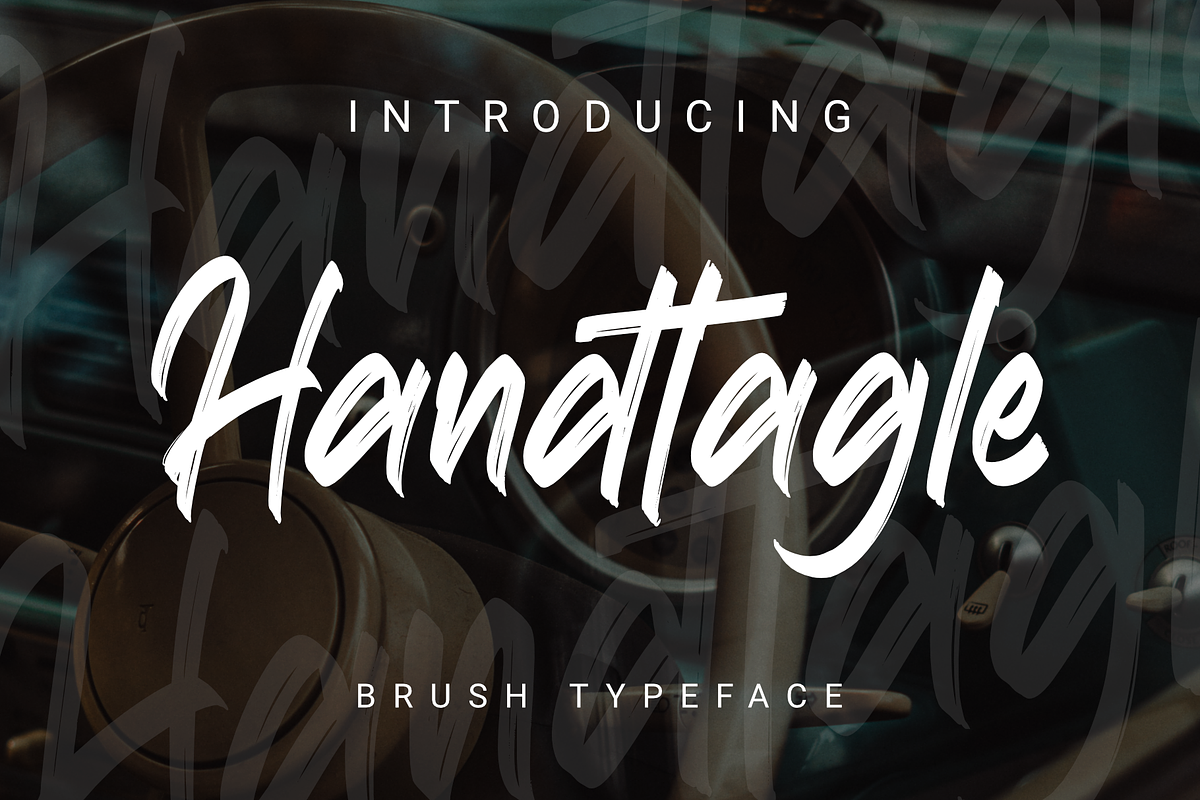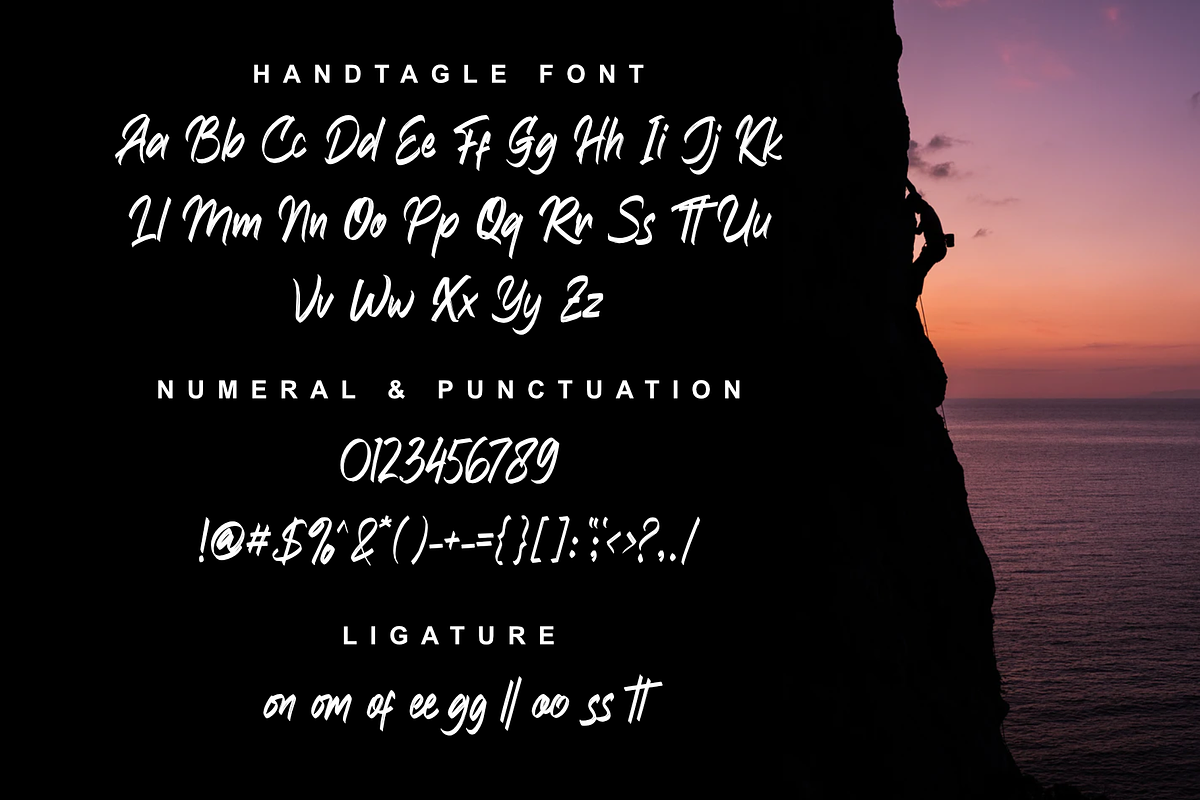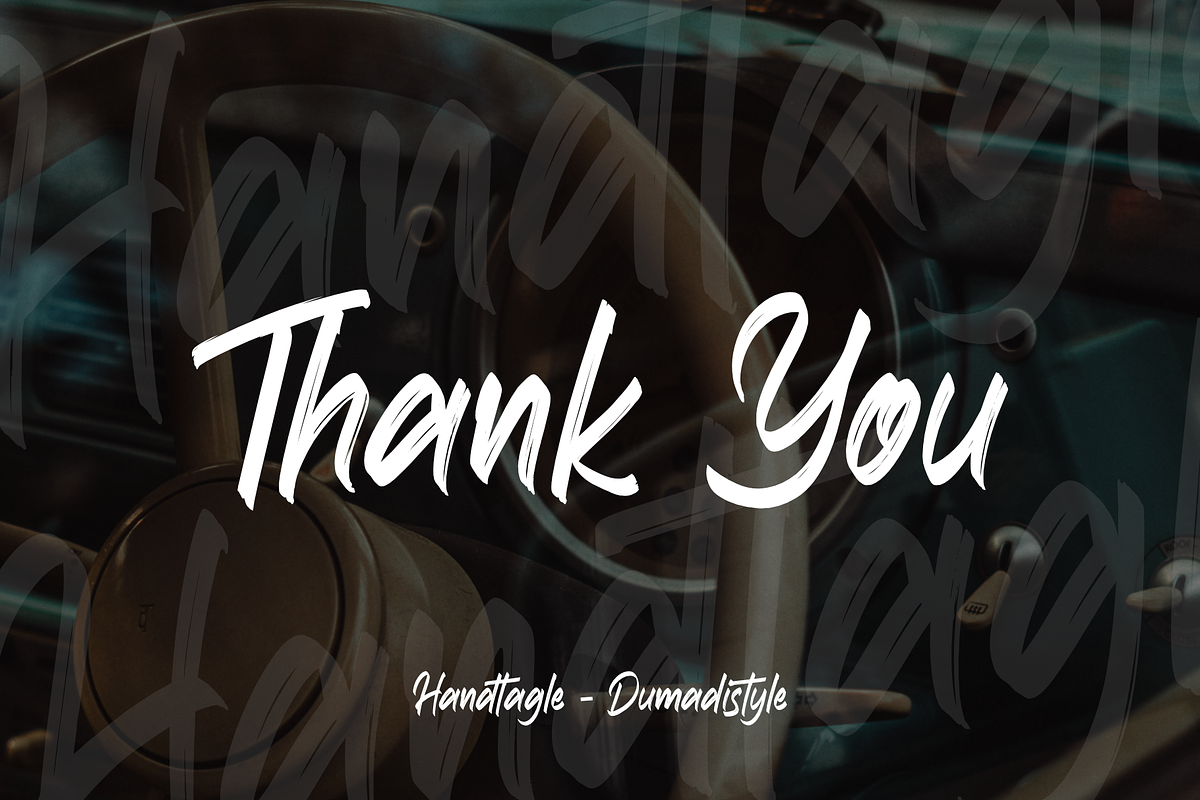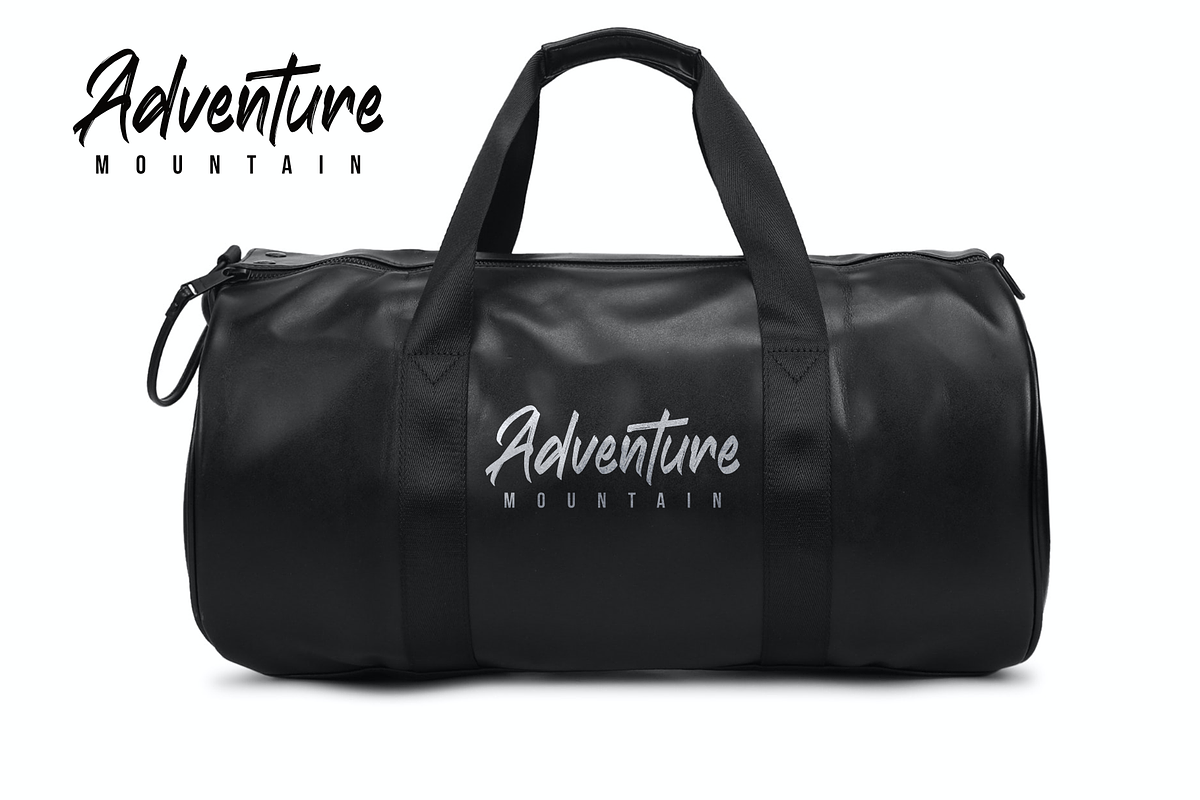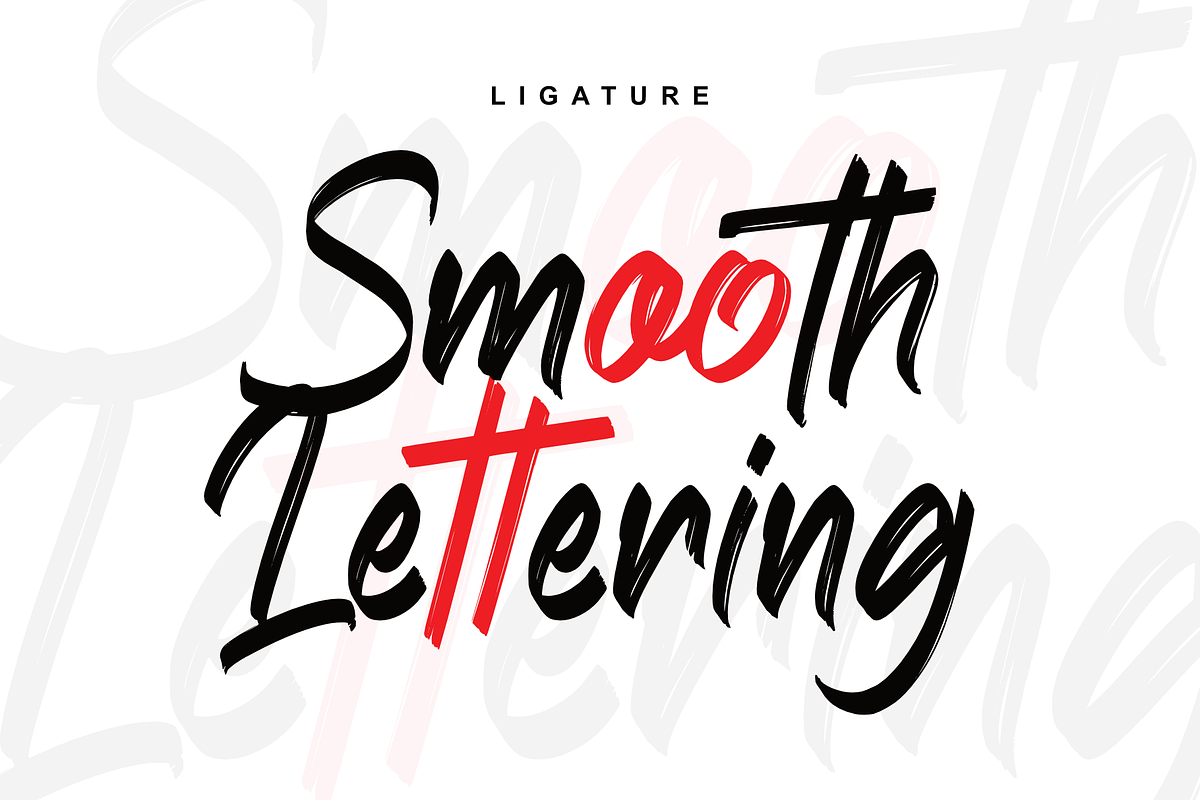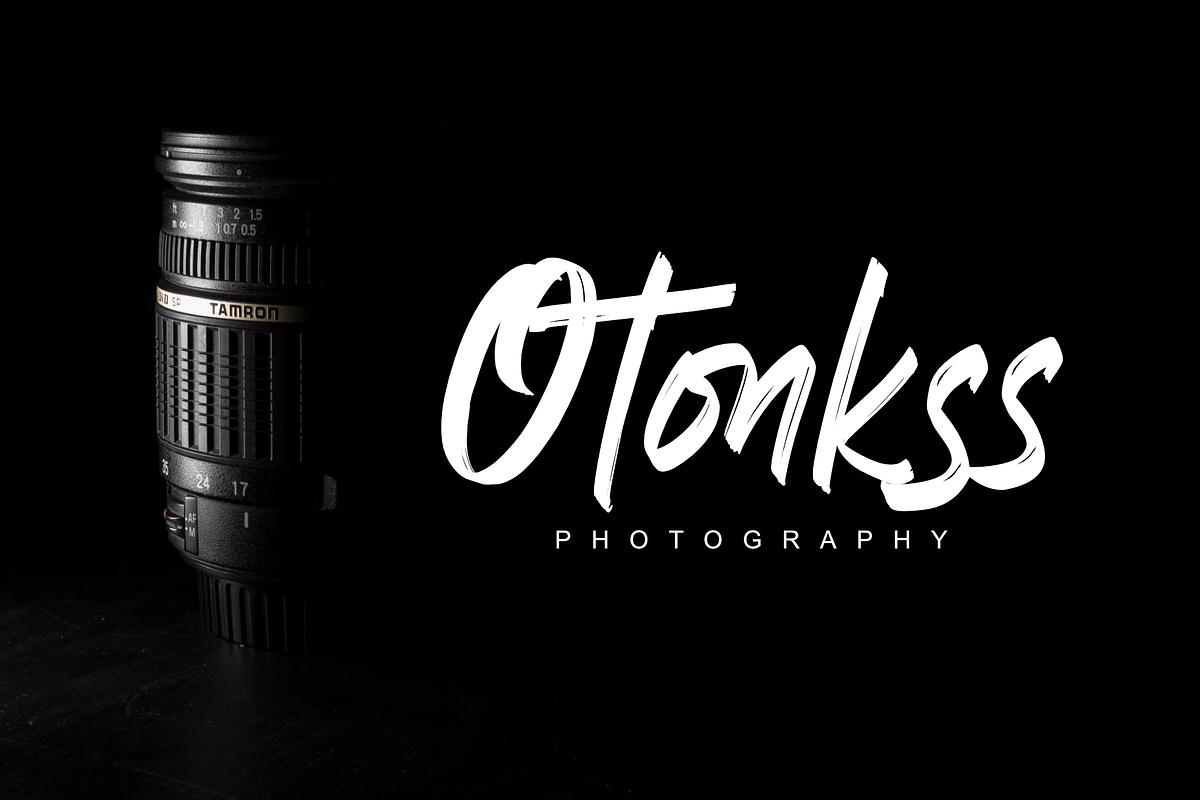
Handtagle
Handtagle is a font display created with brushes in the procreate app and neatly arranged to create awesome fonts. Handtagle perfect for Social Media, product design, labels, poster design, logos, etc.